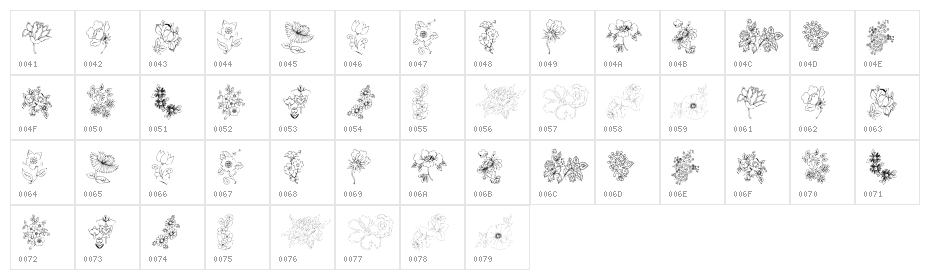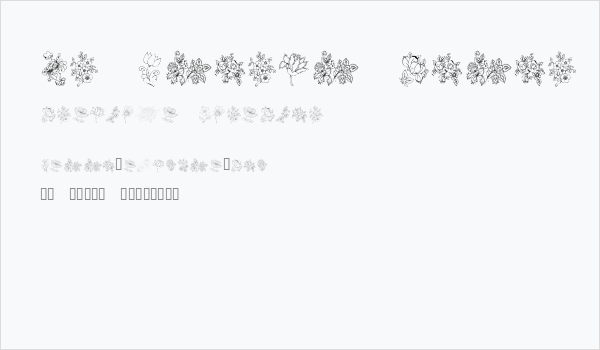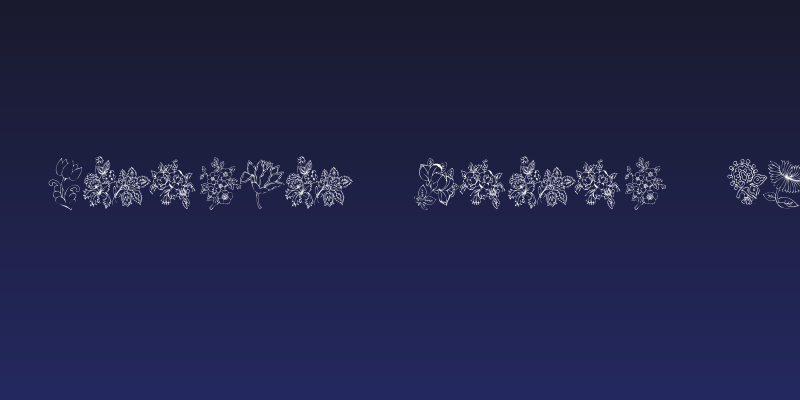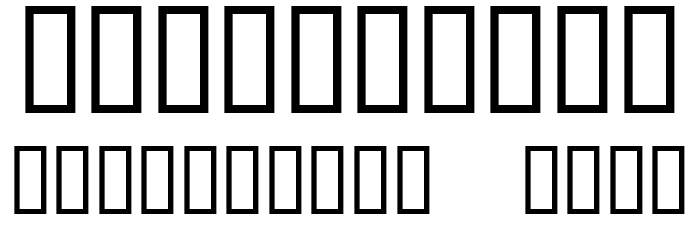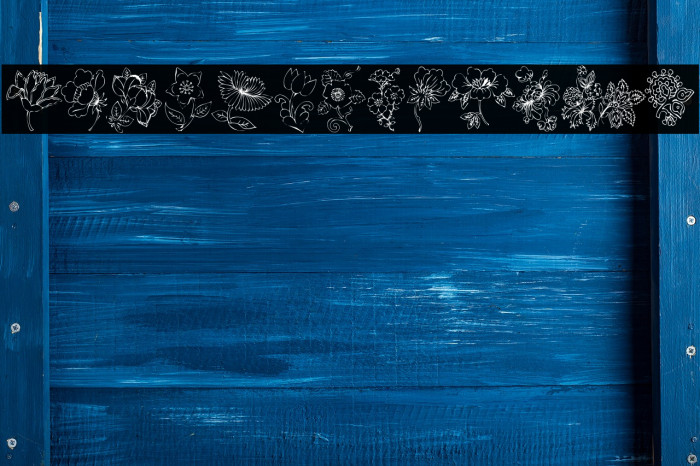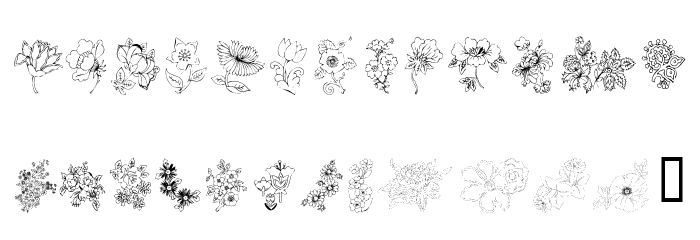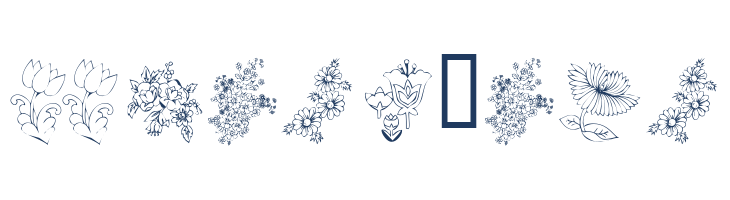
KR Floral Color Me 2 Font
A decorative collection of hand-drawn floral illustrations, each glyph featuring a unique, intricate flower or bouquet design with fine linework and no letterforms present.
| Overall Style | Decorative, Hand-drawn, Botanical |
| Use Case | Decorative elements, Illustrations, Craft projects |
| Proposed Projects | Coloring books, greeting cards, invitations, decorative borders, scrapbooking, digital stickers. |